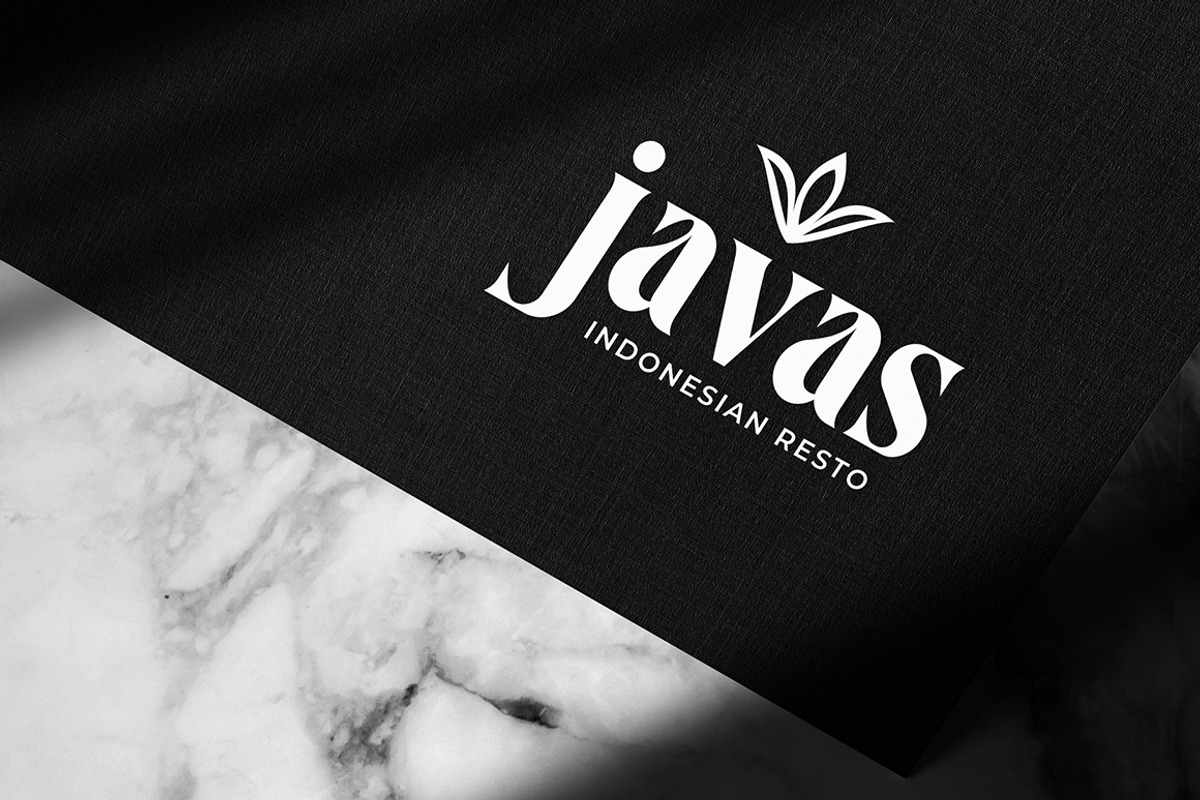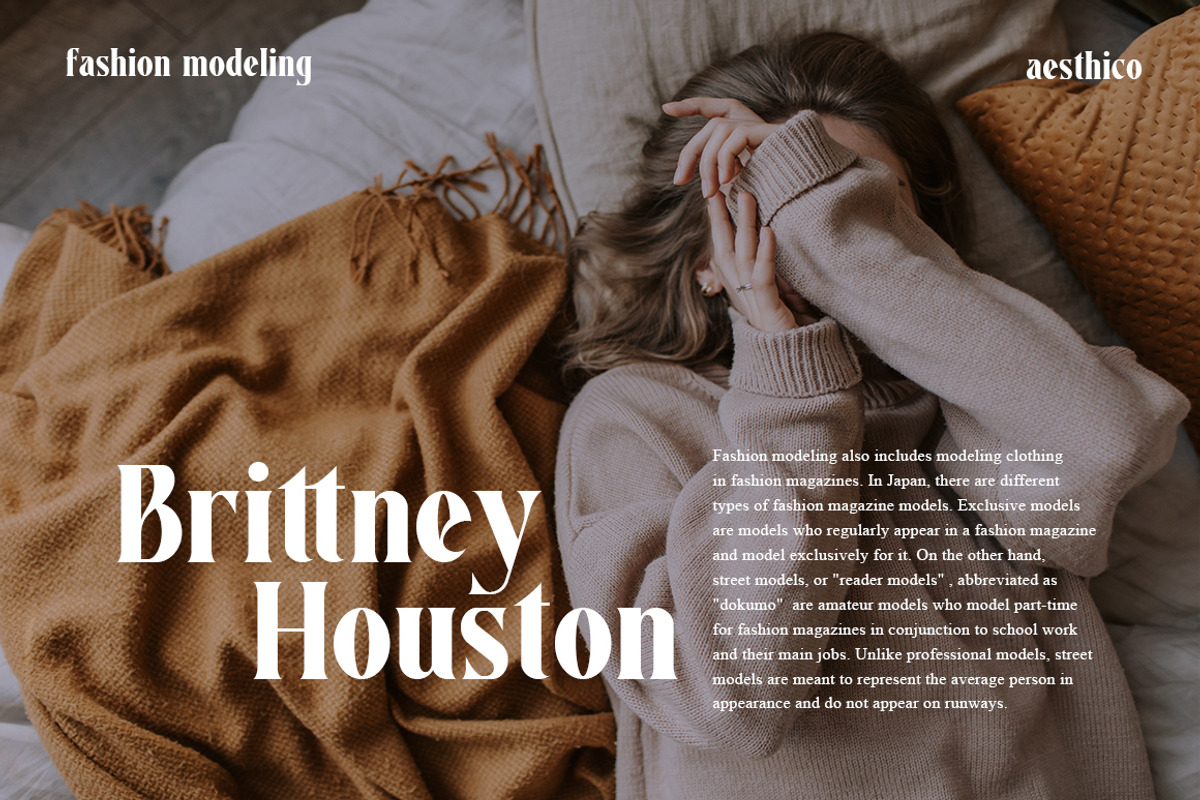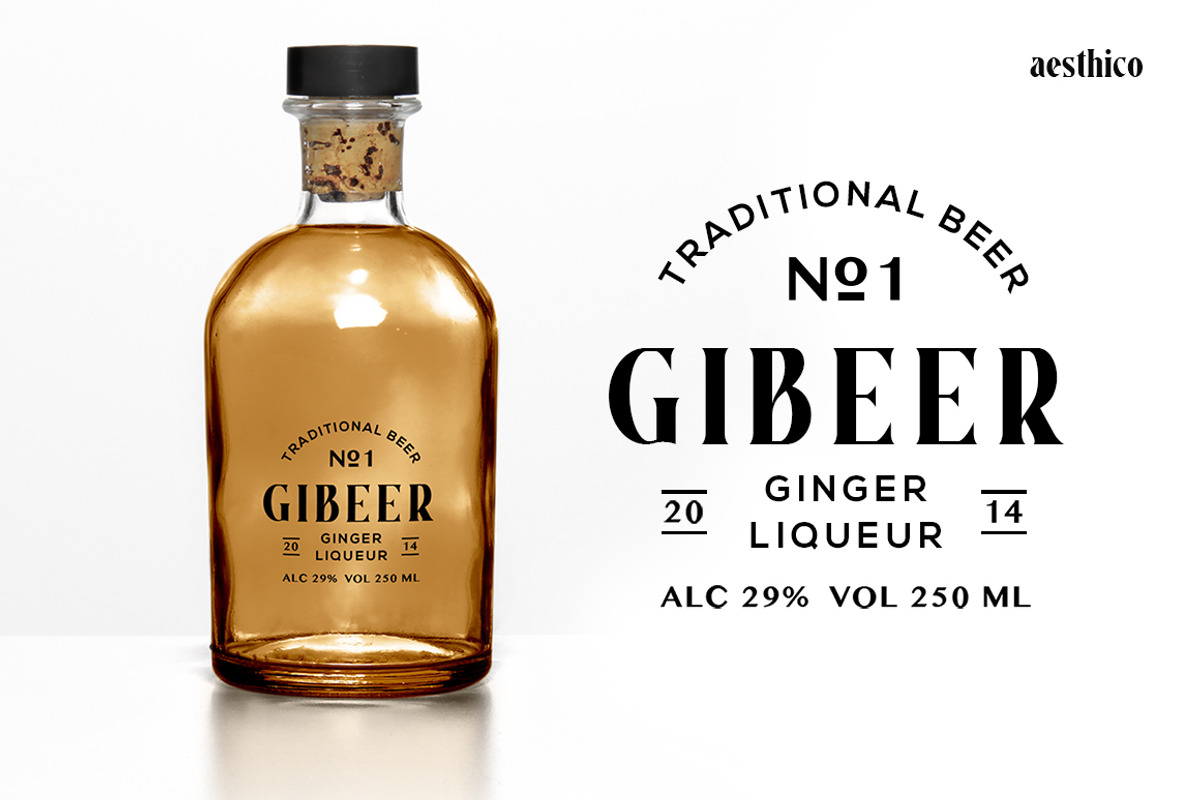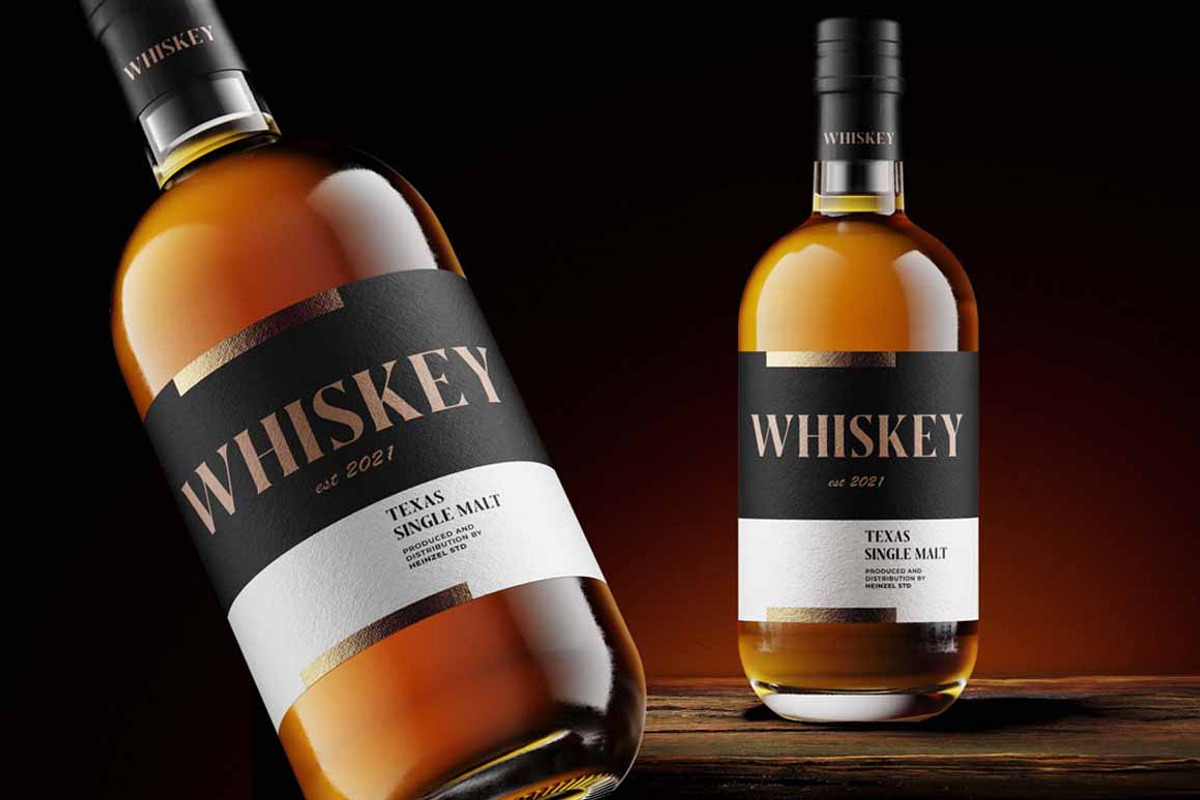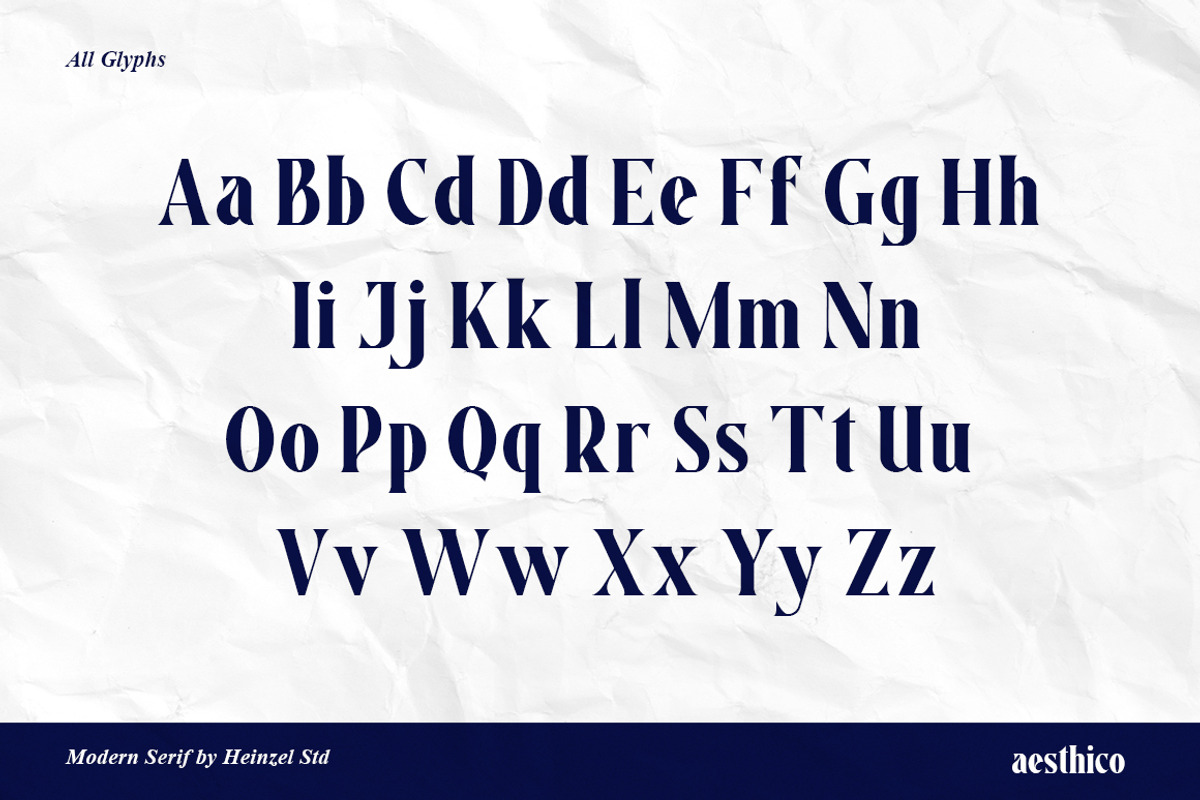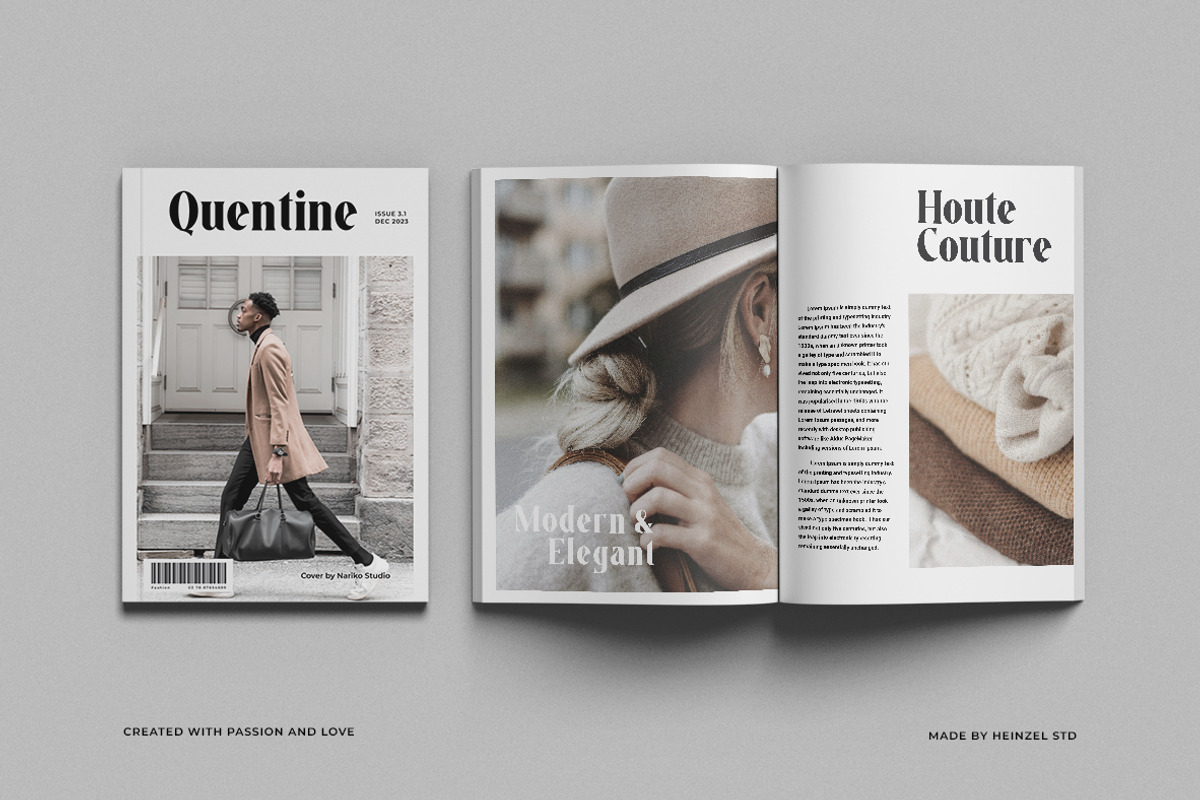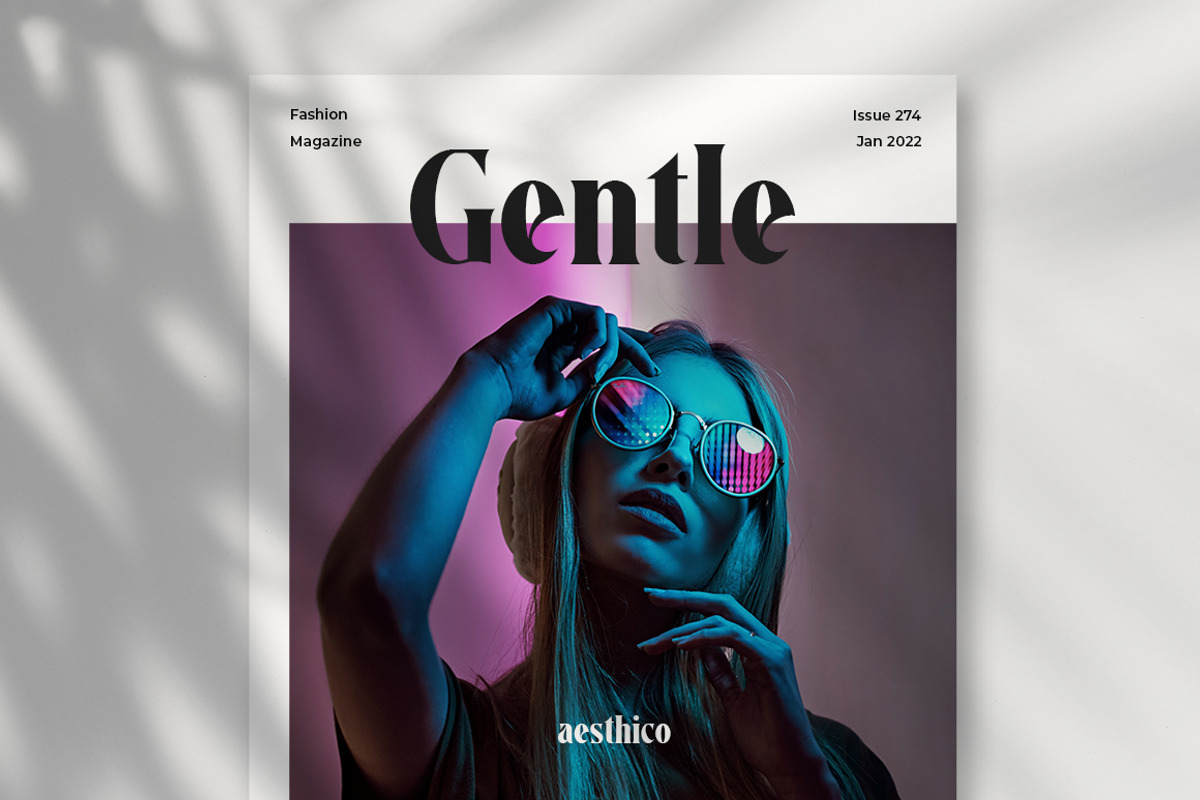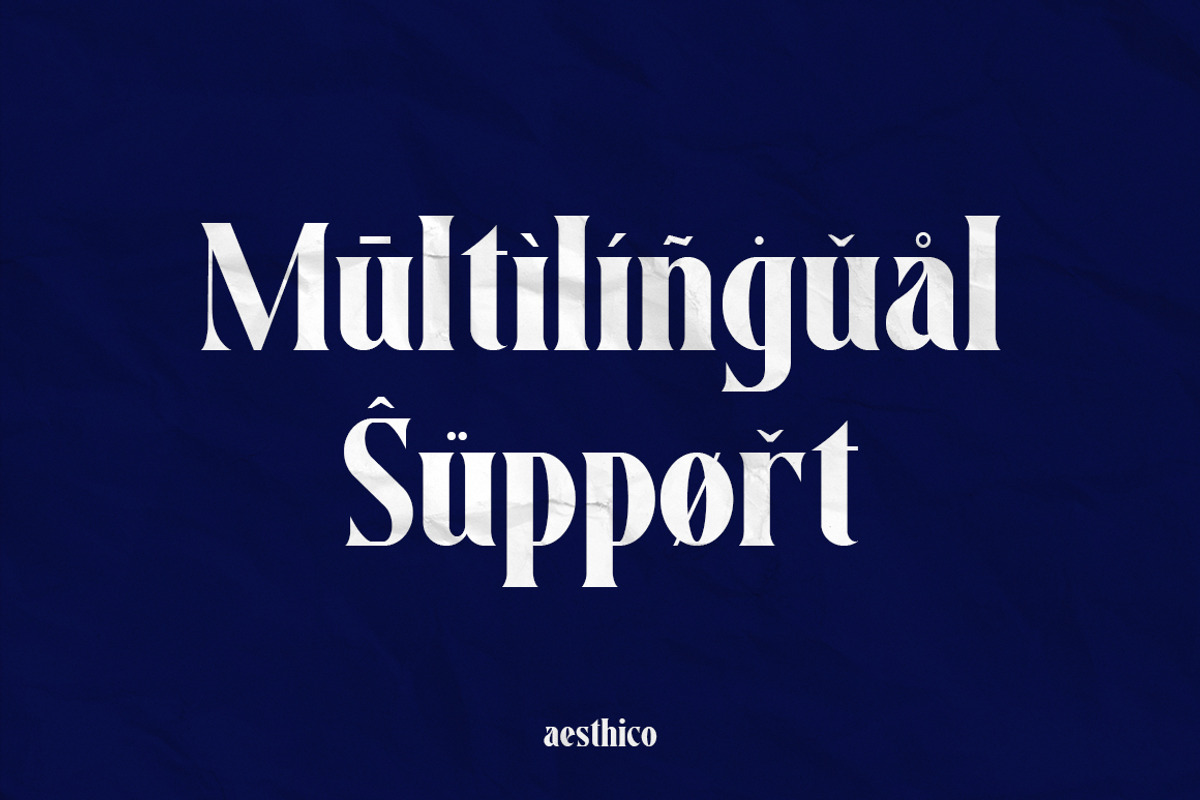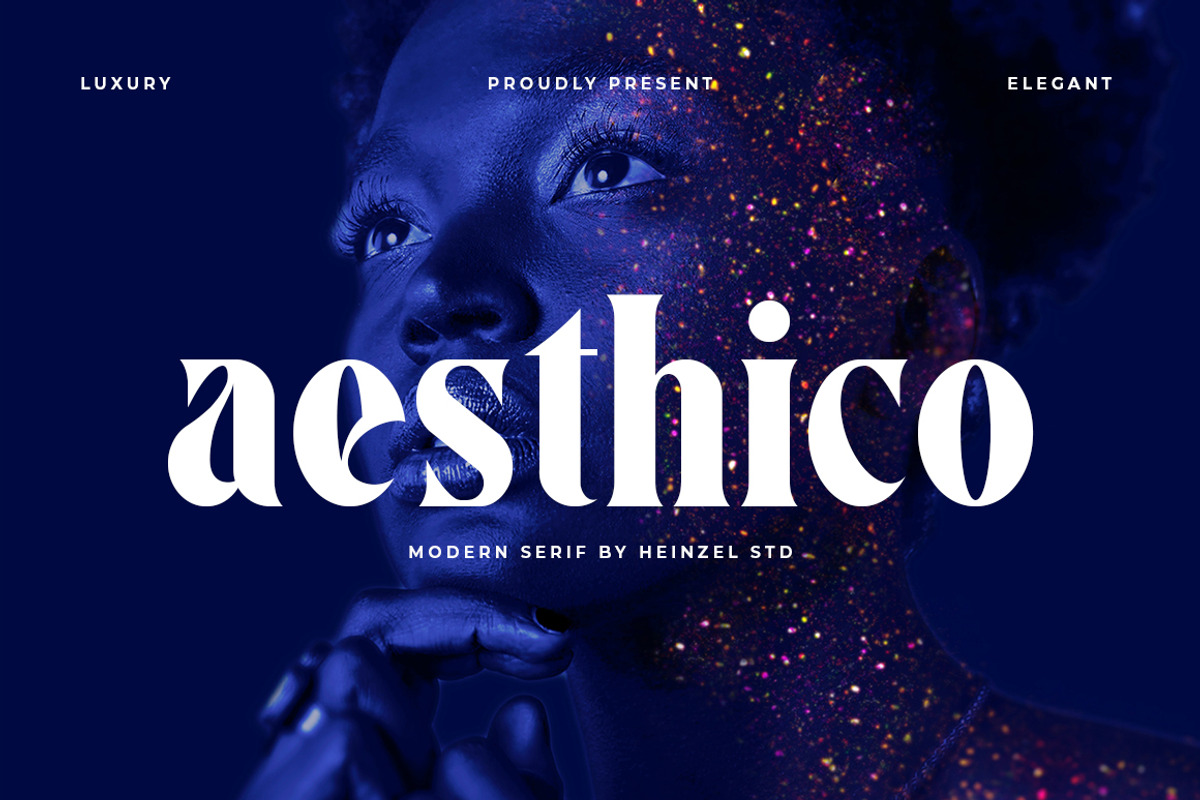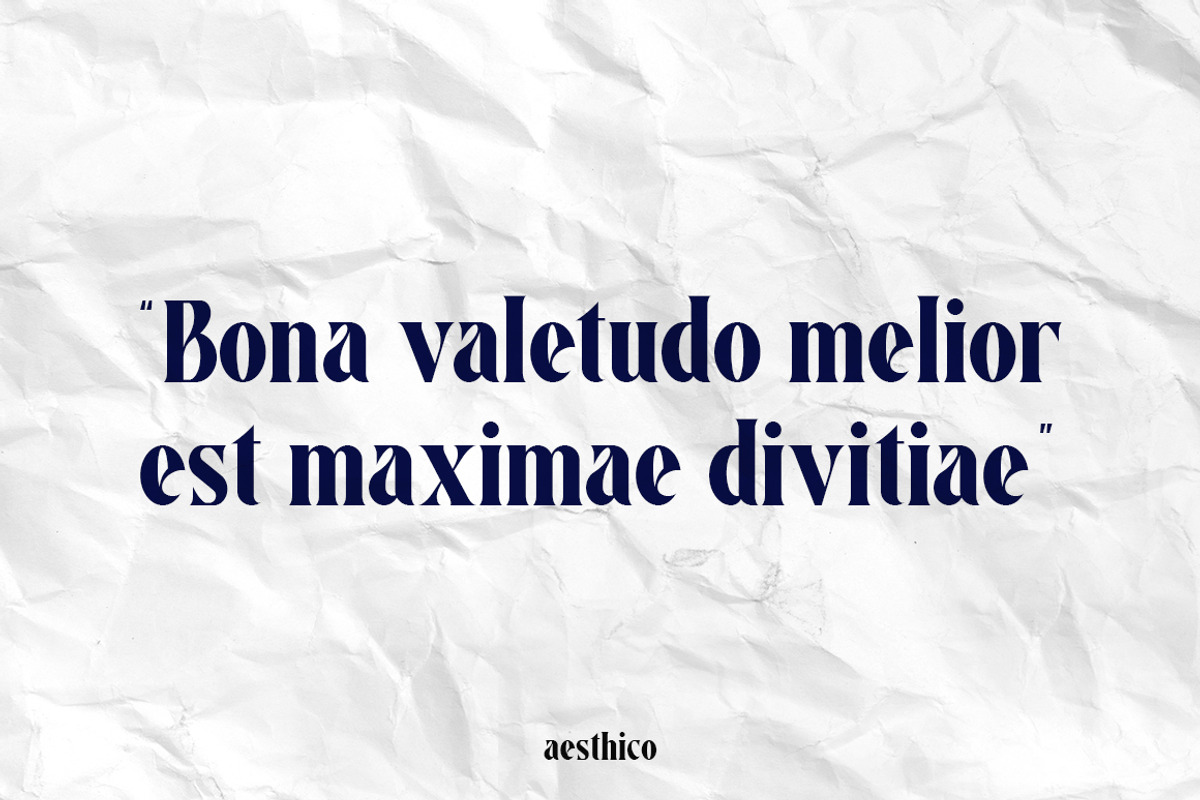
Aesthico Bold Serif Font
Aesthico Bold Serif is a modern luxury typeface designed to deliver elegance, strength, and timeless sophistication in every letterform. With its bold structure, refined curves, and high-contrast strokes, Aesthico blends classic serif traditions with a contemporary aesthetic, making it perfect for high-end branding and editorial design.
Crafted for designers who want to make a powerful visual statement, this font shines in logos, fashion branding, magazine headlines, packaging, and premium marketing materials. Its clean yet expressive character ensures excellent readability while maintaining a distinctive and artistic presence. The bold weight enhances impact, making your designs stand out with confidence and style.
Aesthico Bold Serif is ideal for projects that demand a luxurious, elegant, and modern touch. Whether you're building a brand identity or creating visually striking typography, this font offers versatility and sophistication that elevates any creative work.
Aesthico Features:
- Aesthico Regular version, serif font, Numerals, and more punctuations.
- Multilingual support for various languages